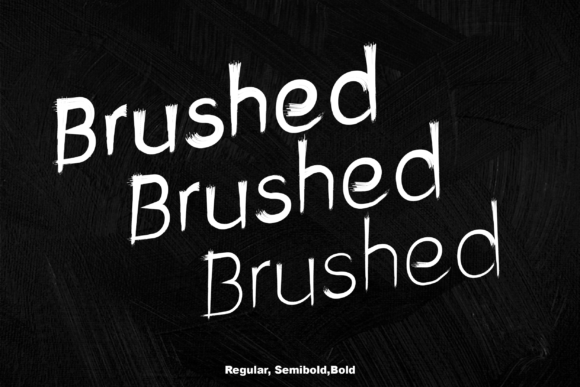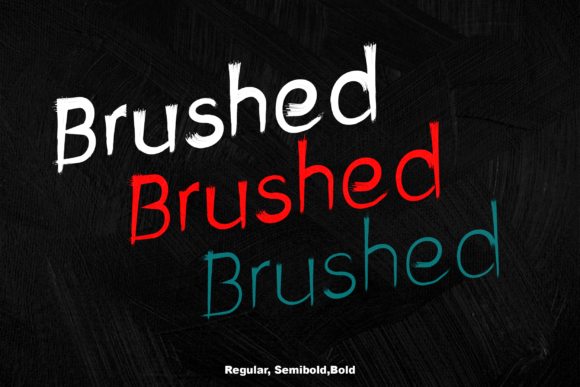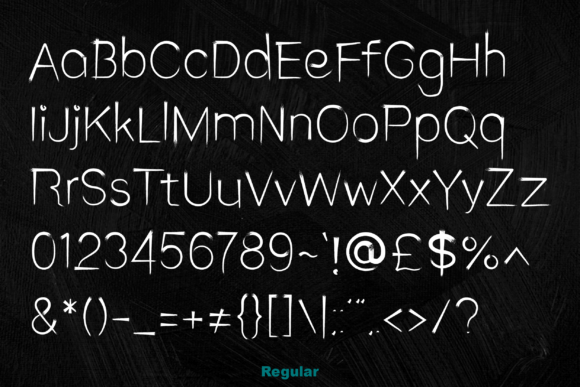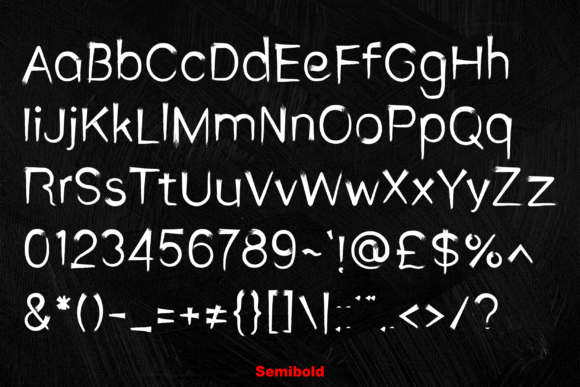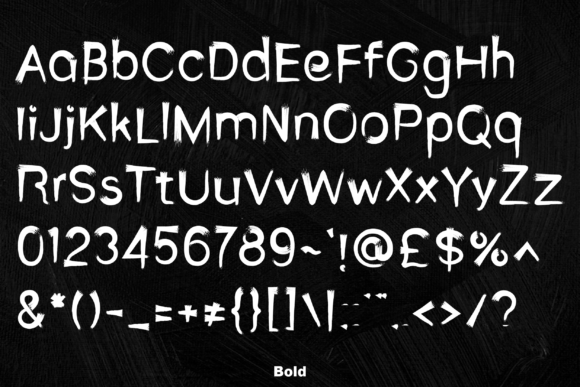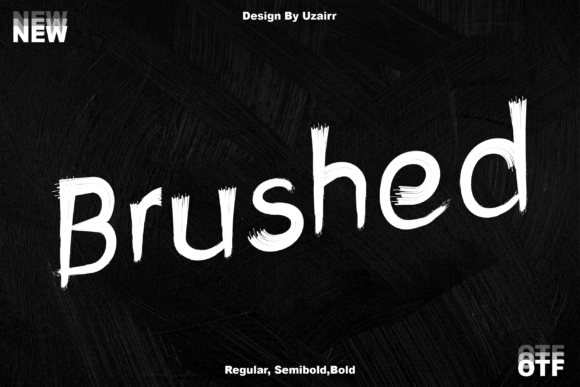
Unlocking the Art of Typography: A Deep Dive into the Brushed Design Font
Typography is an essential element in design, and the right font can elevate a project from ordinary to extraordinary. For those seeking a unique and artistic touch, the Brushed Design font is a game-changer. Created by the talented designer Uzairr, this font is a masterful blend of traditional artistry and digital precision. In this article, we’ll explore the world of Brushed Design, its features, and how it can add a touch of authenticity to your digital content.
The Birth of Brushed Design
Brushed Design was crafted with an artistic touch, mimicking the freedom and spontaneity of a confident brushstroke. Uzairr, the creative mind behind this font, drew inspiration from traditional art brush techniques to create a unique and organic style. The font was born in Adobe Illustrator, a renowned design software, and further refined under the expert care of Fontself. This collaboration resulted in a font that seamlessly blends the raw qualities of traditional art with the precision of digital design.
Characteristics of Brushed Design
So, what makes Brushed Design stand out from the crowd? Here are a few key characteristics that set this font apart:
- Organic style: Brushed Design boasts an authentic, hand-crafted look that adds a touch of warmth and personality to your digital content.
- Digital precision: Despite its organic nature, Brushed Design is meticulously crafted to ensure perfect readability and versatility across various applications.
- Versatility: This font effortlessly adapts to any design project, from bold headlines to elegant body text.
Applications of Brushed Design
Brushed Design is an incredibly versatile font, suitable for a wide range of design projects. Here are a few examples of how you can use this font to add a touch of authenticity and character to your digital content:
- Logos and branding: Brushed Design’s unique, hand-crafted look makes it perfect for logos, business cards, and other branding materials.
- Posters and flyers: Add a touch of elegance and sophistication to your posters and flyers with Brushed Design’s beautiful, flowing lines.
- Digital media: Use Brushed Design to add a personal touch to your social media graphics, blog posts, and website content.
Tips for Using Brushed Design
To get the most out of Brushed Design, here are a few tips to keep in mind:
- Experiment with font sizes: Brushed Design looks great in a variety of font sizes, from large headlines to smaller body text.
- Play with color: The font’s organic nature makes it perfect for use with bold, vibrant colors.
- Mix and match: Combine Brushed Design with other fonts to create a unique and eye-catching typography style.
In conclusion, Brushed Design is a unique and exciting font that can add a touch of authenticity and character to your digital content. With its organic style, digital precision, and versatility, this font is perfect for designers and crafters looking to elevate their projects. Whether you’re creating logos, posters, or digital media, Brushed Design is sure to make a lasting impression. So why not give it a try and unlock the full potential of your design projects?
So, dive into the world of exciting typography with Brushed Design, and experience the perfect blend of traditional artistry and digital precision. With Brushed Design, you can:
- Create stunning logos and branding materials that stand out from the crowd.
- Add a touch of elegance and sophistication to your posters and flyers.
- Elevate your digital media with a personal touch that resonates with your audience.
Unlock the art of typography with Brushed Design, and discover a world of creative possibilities. Get ready to unleash your creativity and take your design projects to the next level!